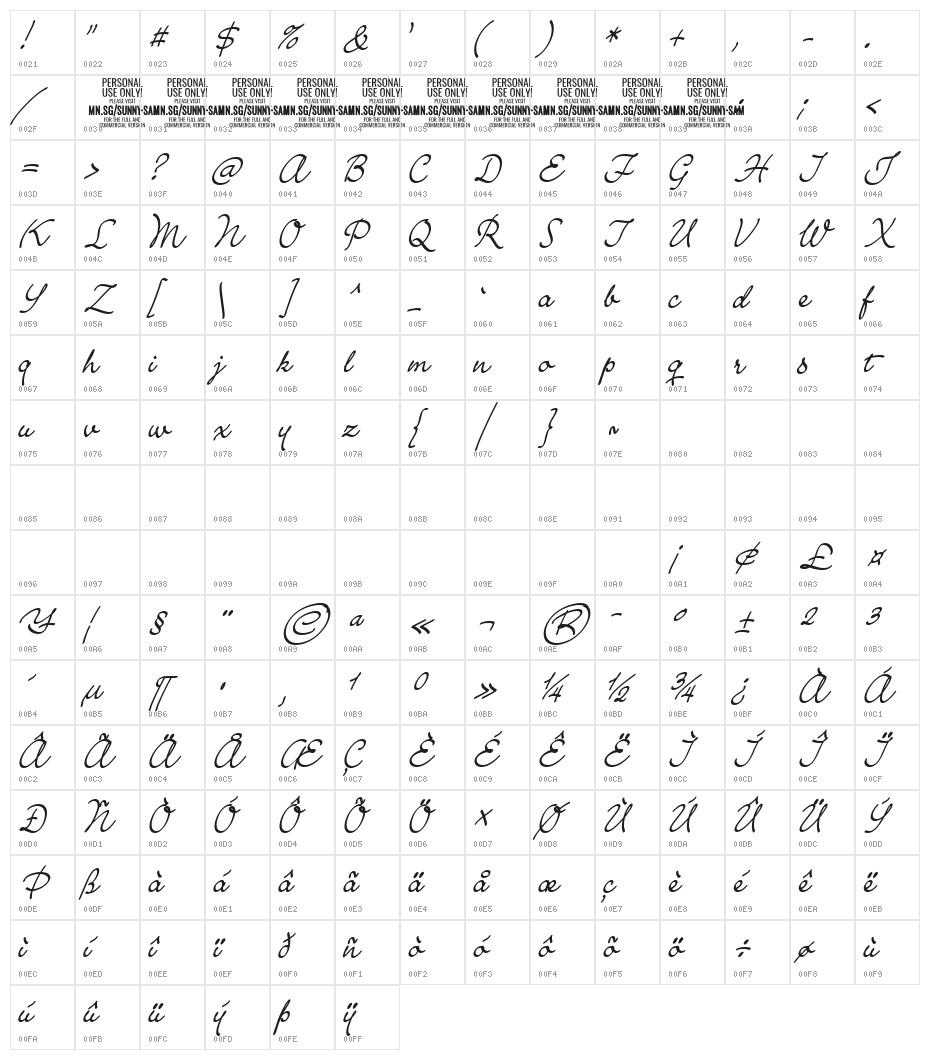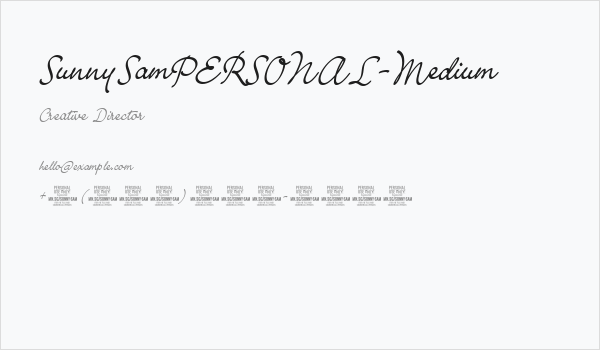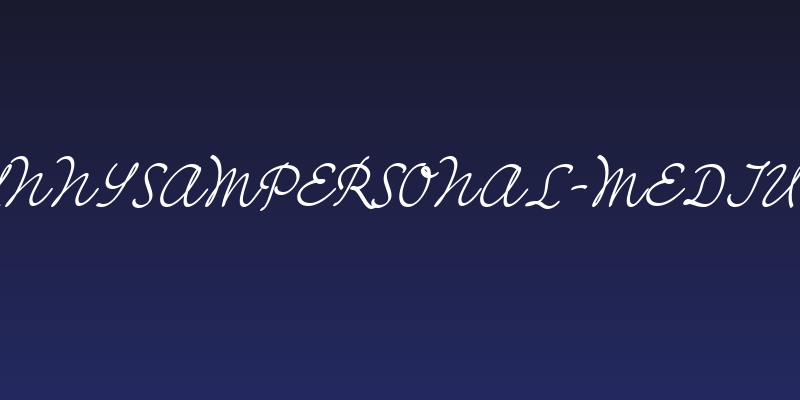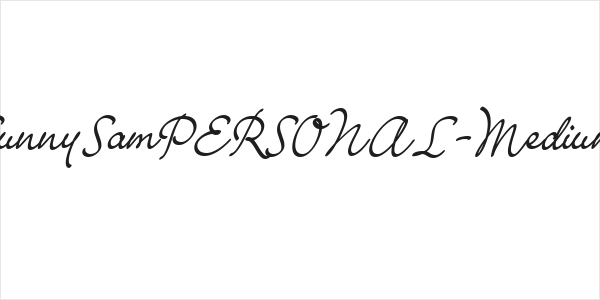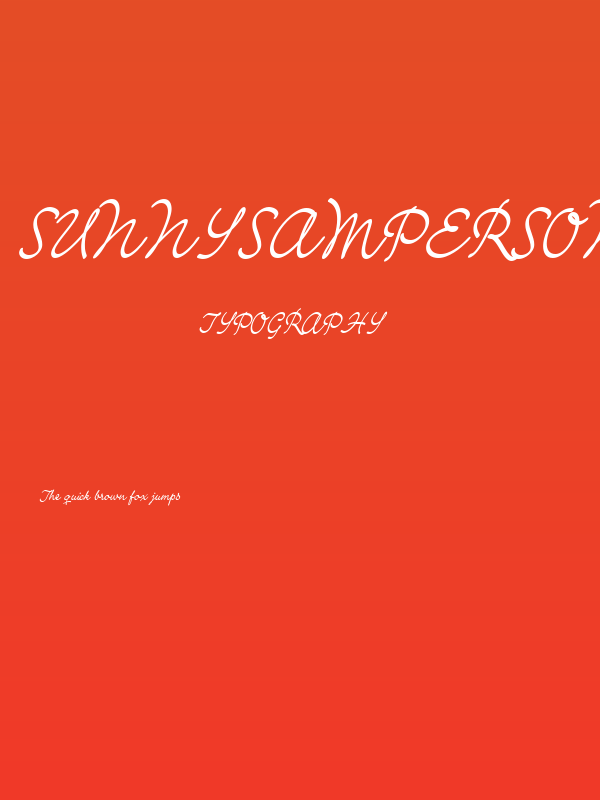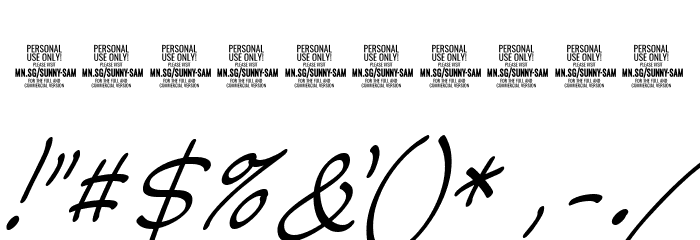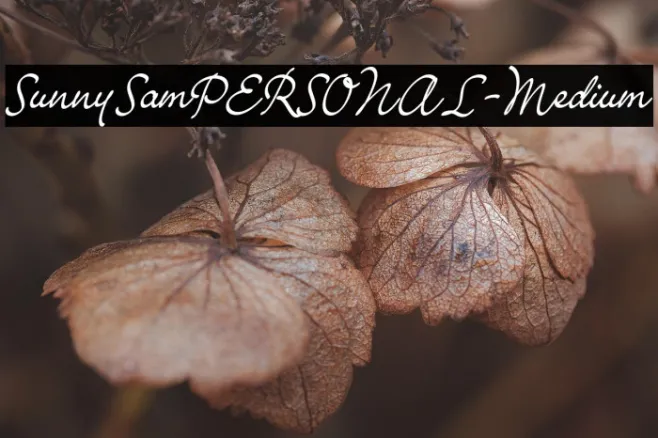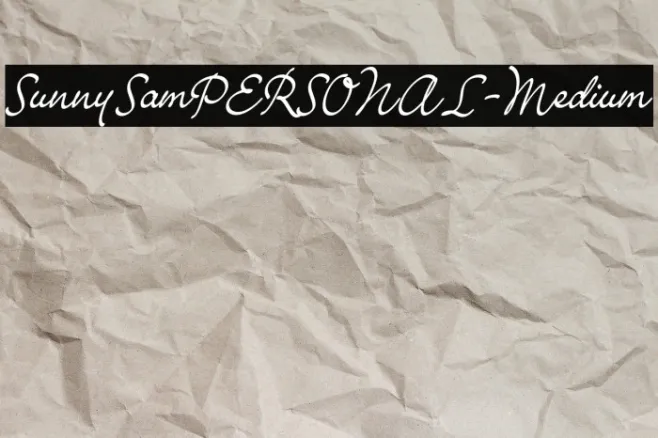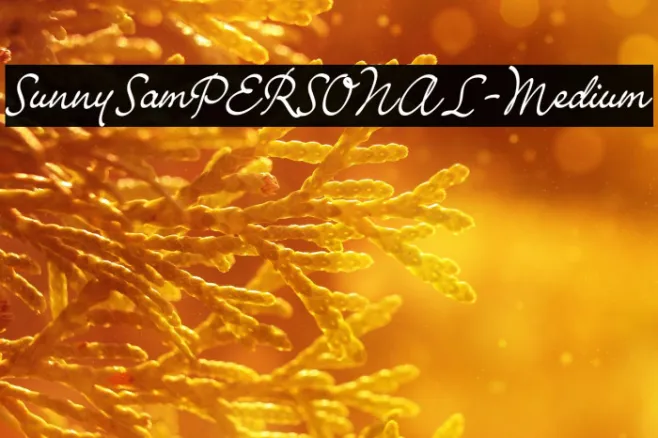
SunnySamPERSONAL-Medium Font
SunnySamPERSONAL-Medium Description
This font features a flowing, cursive style that mimics elegant handwriting. The uppercase letters are slightly slanted with smooth, continuous strokes, giving a sense of fluidity and grace. The lowercase letters maintain a consistent style, with some characters like 'g' and 'y' having distinctive loops that add to the overall charm. The numerals and special characters are crafted to match the script's aesthetic, ensuring a cohesive look across all text. This font is ideal for projects that require a personal touch, such as invitations, greeting cards, or branding materials that aim to convey sophistication and warmth.
| Proposed Projects | Ideal for wedding invitations, personal branding, greeting cards, and elegant packaging designs. |